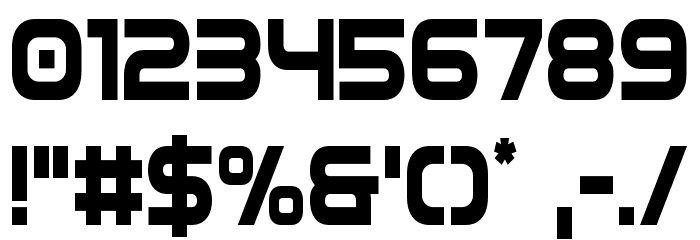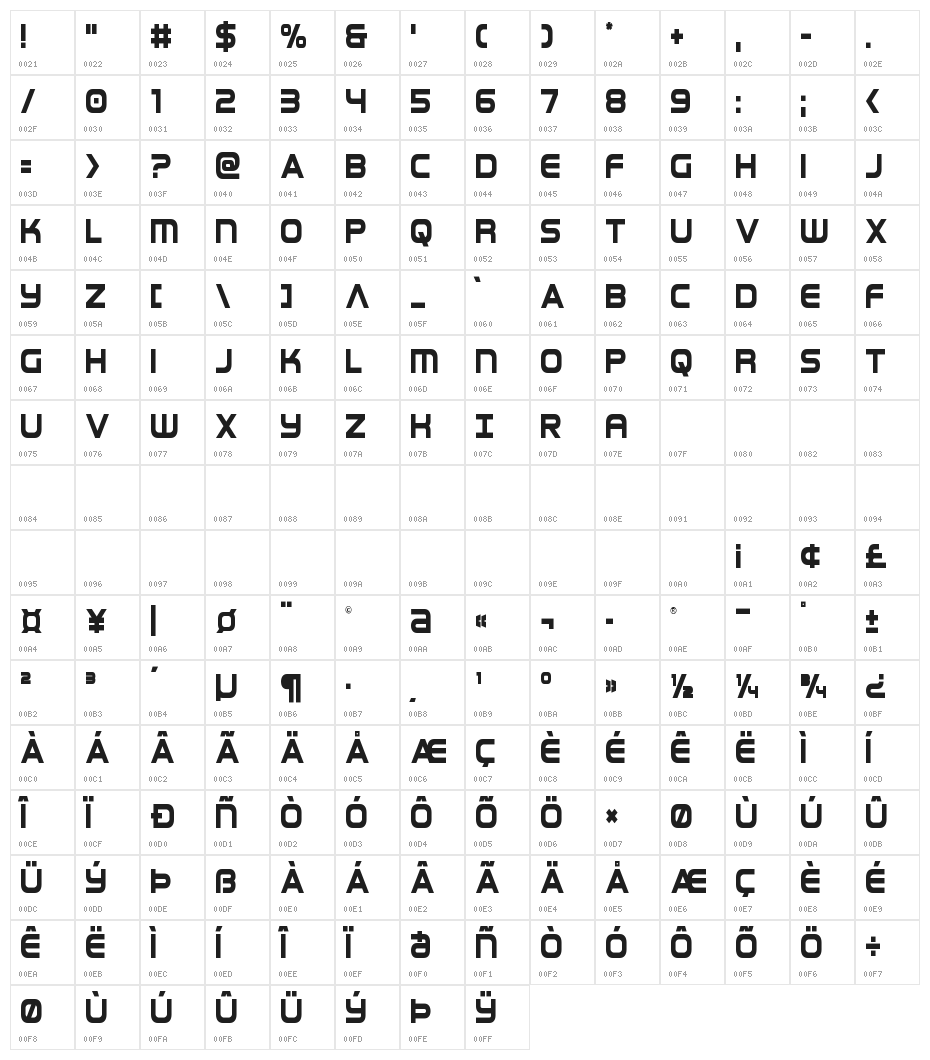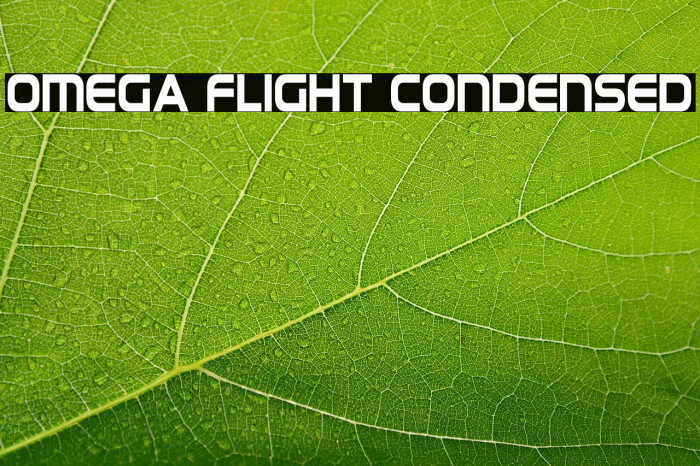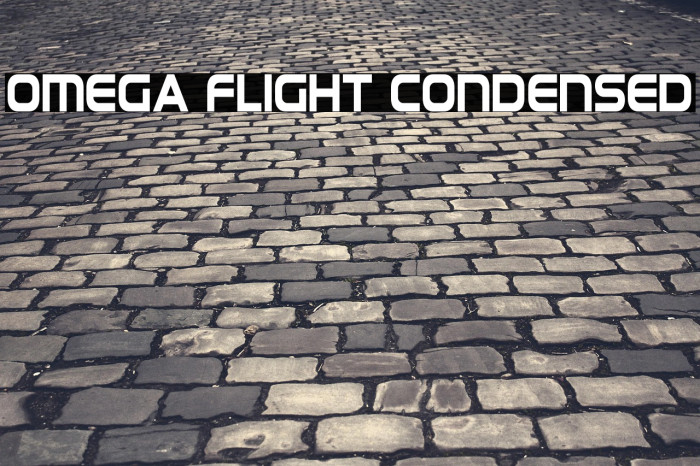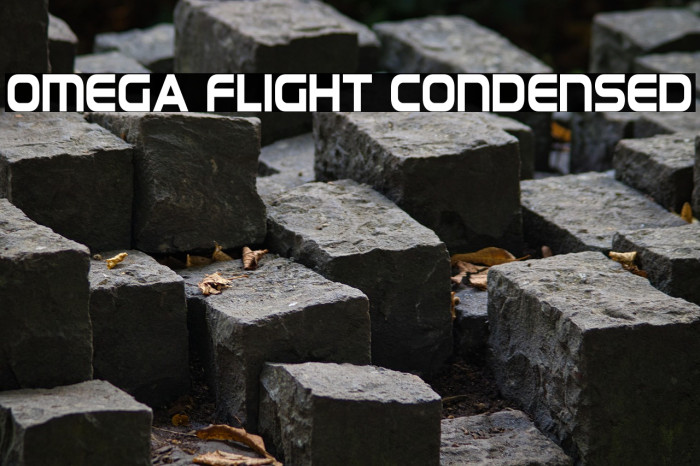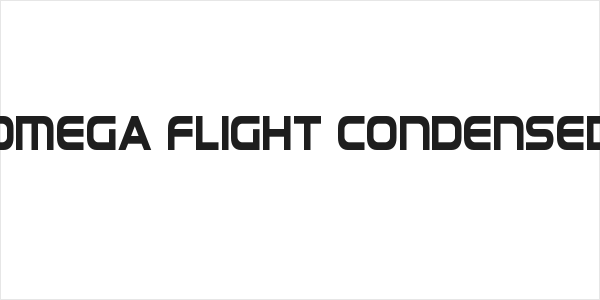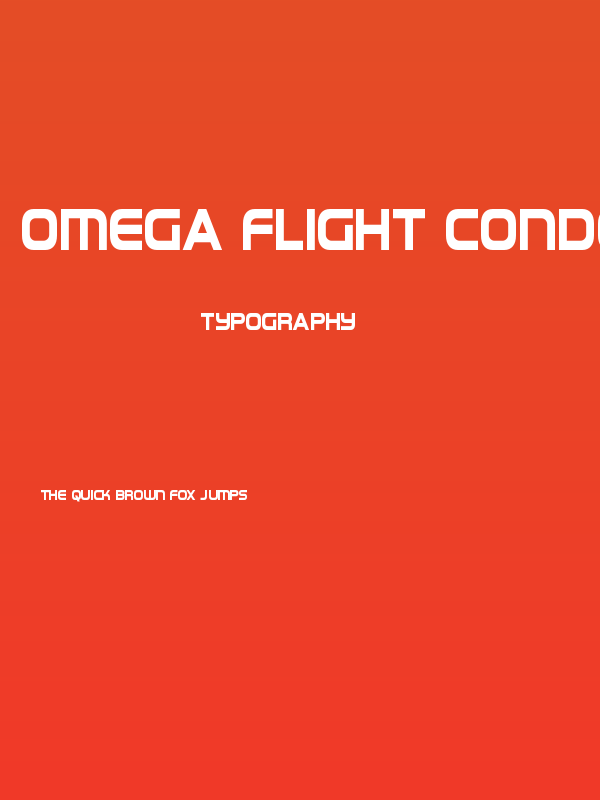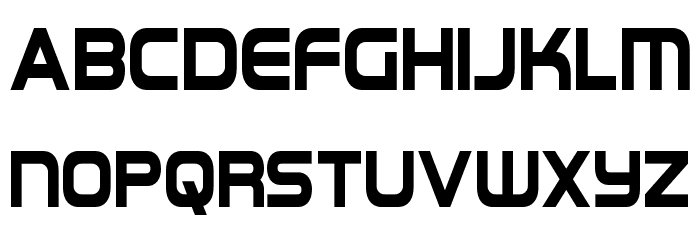
Omega Flight Condensed Font
Omega Flight Condensed Description
This font features a bold and futuristic design with a condensed structure, giving it a sleek and modern appearance. The characters are uniform in height, with rounded edges and a geometric style that enhances readability. The uppercase letters are particularly striking, with a strong presence that makes them ideal for attention-grabbing headlines. The numerals and special characters maintain the same boldness and geometric consistency, ensuring a cohesive look across all text elements. The overall design is clean and minimalistic, making it versatile for various applications.
| Proposed Projects | Ideal for technology branding, sci-fi movie posters, modern advertising campaigns, and digital interfaces. |